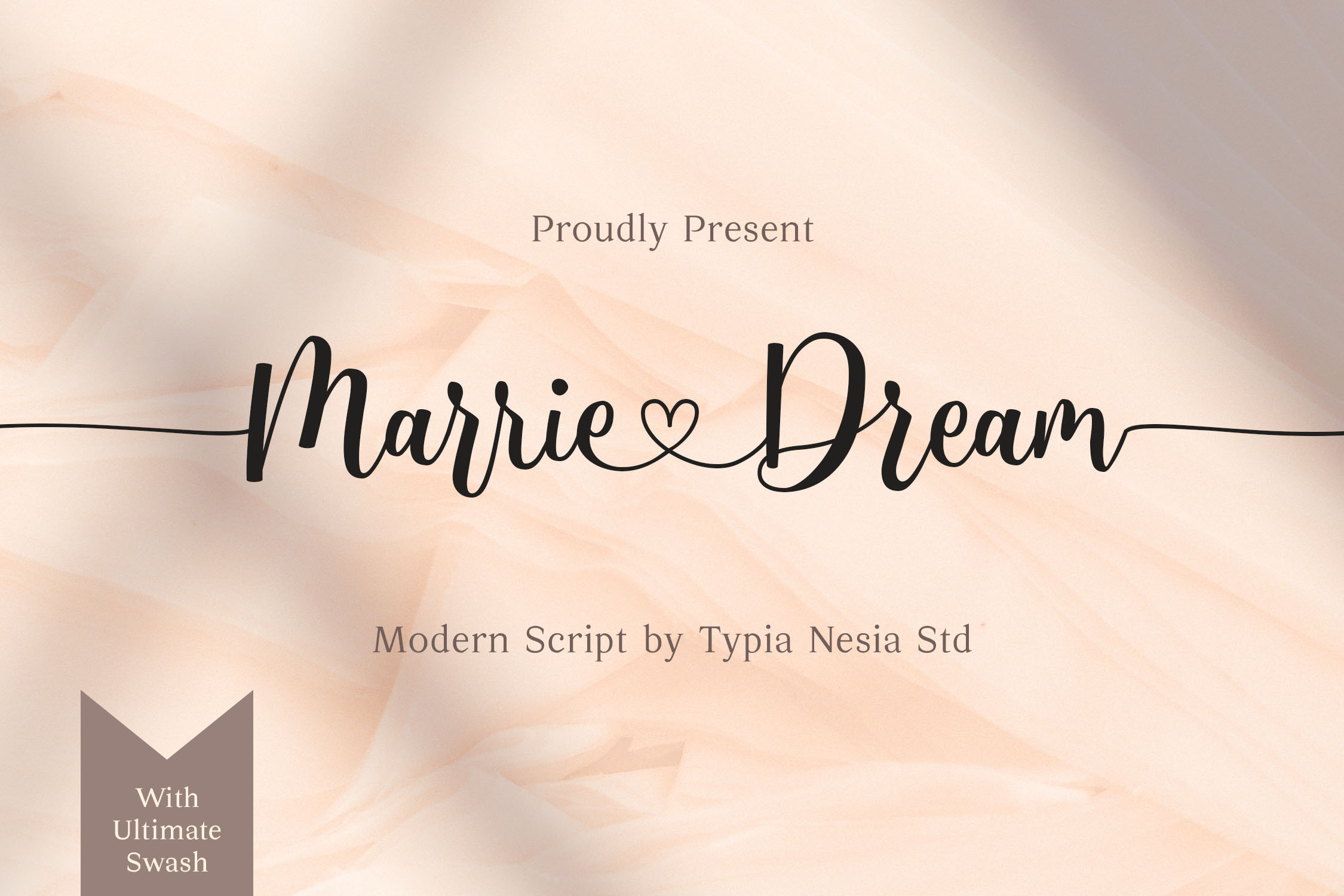
Marrie Dream
Marrie Dream is a font family published by Typia Nesia.
Marrie Dream - Wedding Calligraphy Script Font with ligatures and swashes.
The unique flow and easy calligraphy style makes it perfect for wedding design, blogging, social media, branding, invitation, gretting cards or simply use it in your next design project. It comes with ligatures and swashes. You can combine it to make a perfect beautiful calligraphy design.